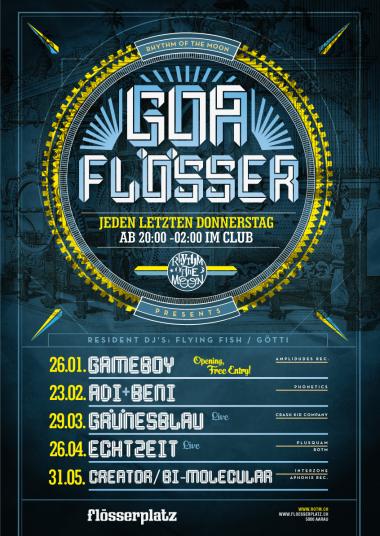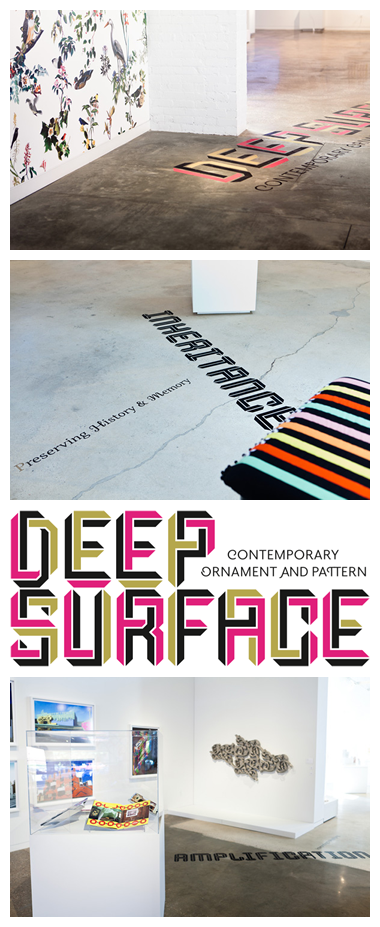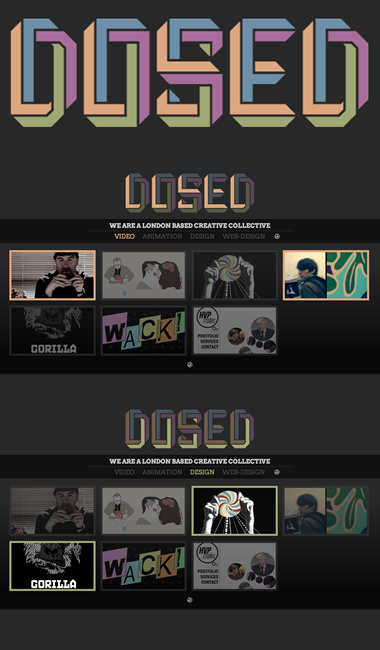
• I intended to make some sort of an M.C.Escher tribute here. I'm sorry this isn't very complete and far from being perfectly well done, but it somewhat started to make me feel dizzy...;) And even though I'm not very convinced by this, I don't think I'd come up with a way better execution soon.
I hope for Mr Escher that there are better tribute fonts for him out there! He'd definitely deserve it...
It was by the way funk_king's Impossible Alphabet that reminded me of this unfinished thing laying around in my messy unpublished fontstructions box, and made me take it out and finish it. (If you can call 42 characters "finished".)
Also check out Frodo7's Hommage à Escher, geneus1's IsoMatrix 3D, and funk_king's Soma for some other great Escher-esque fontcrafting!
you have created some intriguing geometry here. and yes i started getting vertigo myself and had to look away but can't help from looking :)
Amazing. Totally Brilliant.
The X is freakin me out!
love it
10/10
Any chance you could do a comma?
Plus I think 7 could be more like the X & Y. At the mo it looks like a backward F.
shasta, this is really excellent. I'm sure M.C. Escher would be pleased. :-)
Brilliant work. I especially like the C,G,O and S. And the $ is very good too. They nicely capture the essence of M.C.Eschers' impossible geometry.
It is a strange coincidence, but my next font - soon to be released here - is also inspired by the Dutch master.
What a great movement this font has! And what is wrong with the execution? It looks perfect to me! I really like the V/W too. Ten ten ten.
Ha ha, great! You developed the concept very consistently in each gliph!
Great Escher Tribute!
ps: you were a bit shy with "4"'s width...
@djnippa: I've added a comma. Shame I can't really do an impossible comma. I tried, but it would end up way too big. As for the 7, I'll try something new there too...
@intaglio: Maybe the execution of this particular concept isn't so bad, but I've tried a lot of different things trying to get a better 3d look, like diagonal perspective, shadow/light only etc, but I always failed as soon as it got to the "impossibleness". (Sounds somewhat logic, doesn't it?) So this particular design is just the only way I could do a complete set, but it looks too flat in my opinion.
I'm also not very happy with the cheap solution on B, K, R and 8... I'll see if I can make something better there.
@jmarquez: Corrected the 4's width... Good eye! :) This was again the old consistency trap, I wanted to keep all the characters on the same width.
Superb!!
It could be nice to try out a wireframe variation.
Twisty 3D! If this is far from being perfectly well done, I'd like to see how you could improve it. The flatness you mention only adds to the illusion of three dimensionality. There is a simultaneous 2D/3D quality that is implied. If you zoom into any character, it has proper 3D attributes. But when you pan to another section of the same character, the dimensionality shifts. Very Escheresque! I'm convinced, and I have a diagonal 3D shaded version.
Incredible!!!!
Yeah, very unique. Like the $.
Very nice. I will enjoy looking it over. Thanks for sharing.
Oh! That's nice! That's brilliant! Congratulations! Very hard work!
I've just modified B, K, R, 3 and 8... I found the previous solutions too cheap, now they're a bit more wicked on the eye.;)
Might add a lowercase if I find some time next week, and maybe do a lighter version of this.
That;s really awesome. :D
It's great to see this wonderful design in use. Congratulations.
cool mind bending font, you make it look easy:)